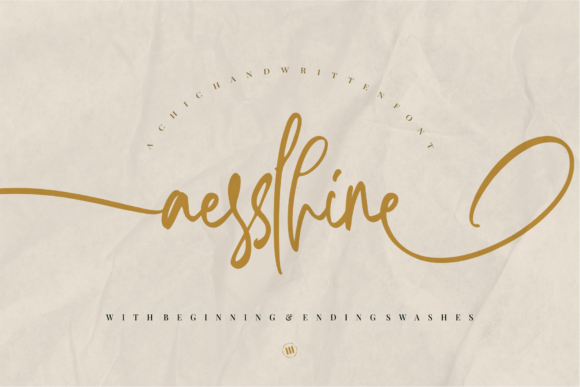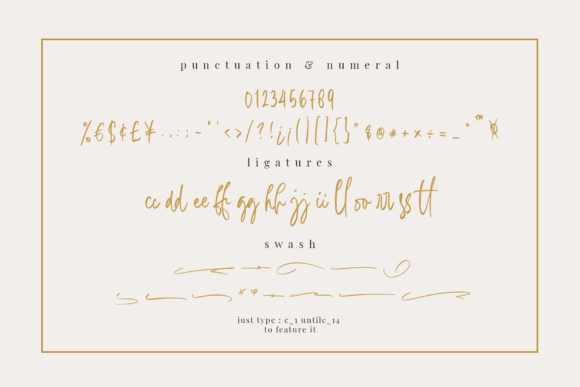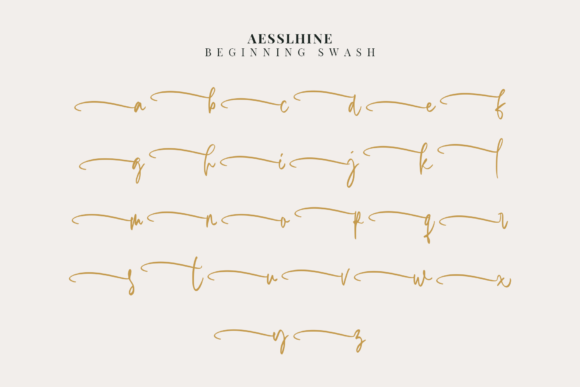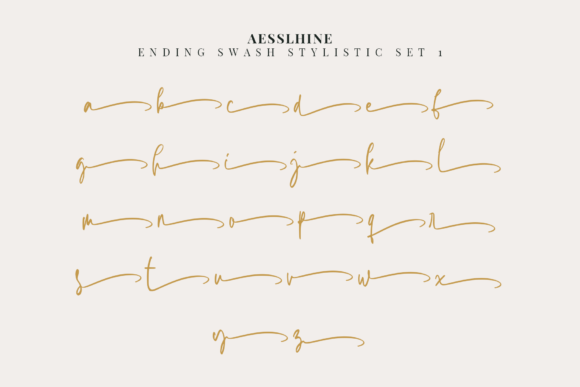
About Aesslhine Font
Aesslhine is a handwritten script font that feels incredibly elegant and flowing. It is perfect for wedding invitations, thank you cards, quotes, greeting cards, logos, business cards, and more! Whether you’re looking for fonts for Instagram or calligraphy scripts for DIY projects, it will turn any creative idea into a true piece of art!